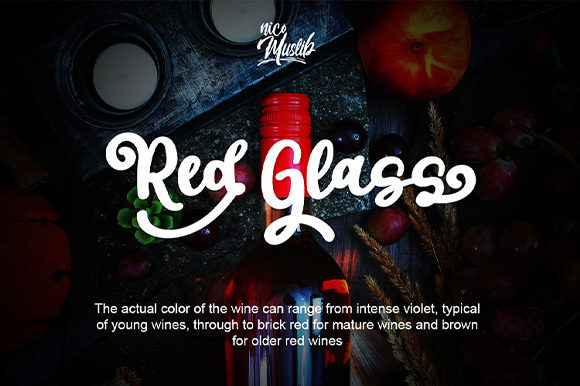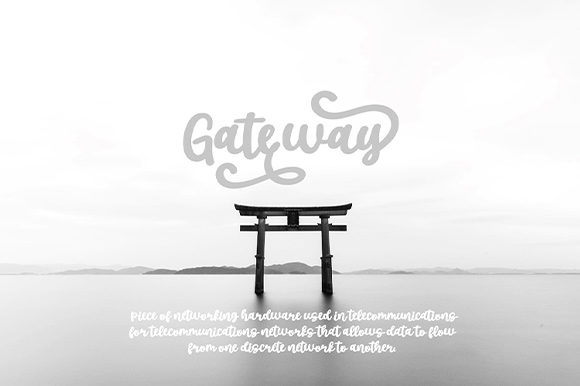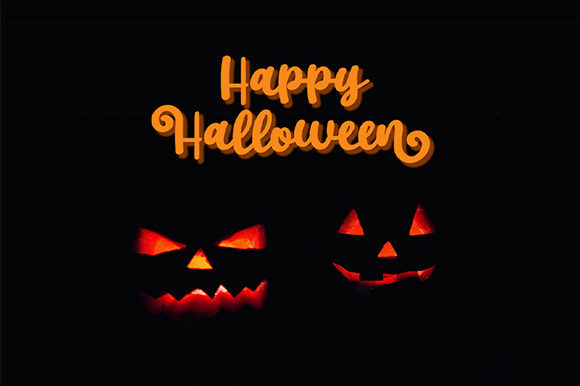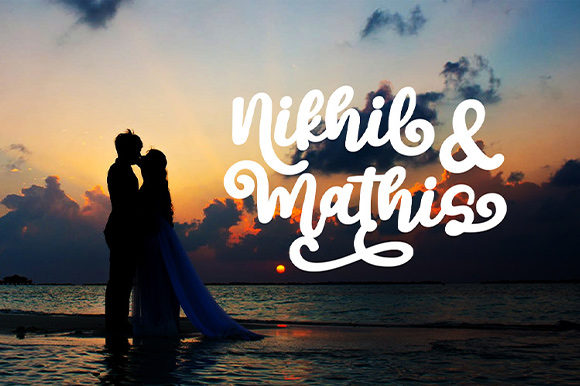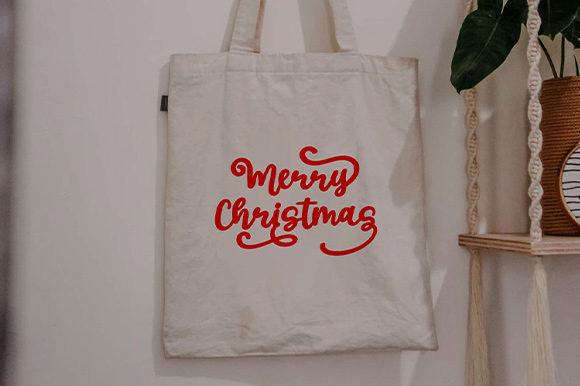
About Red Marble Font
Introducing “Red Marble,” an exquisite and elegant handwritten font that exudes sophistication and charm. With its flowing and graceful style, this font is perfect for a wide range of projects, from wedding invitations to thank you cards, quotes, greeting cards, logos, business cards, and any design that requires a touch of handwritten beauty.
One of the remarkable features of “Red Marble” is its PUA encoding, which allows easy access to all the glyphs and swashes. This means you have the flexibility to customize and add flourishes to your designs effortlessly, enhancing the overall visual appeal and uniqueness of your creations.
The varying baseline of “Red Marble” adds a sense of movement and rhythm, creating a dynamic and engaging visual experience. The smooth lines and gorgeous glyphs give your designs a polished and professional look, making it an excellent choice for both personal and commercial projects.
While “Red Marble” maintains its classy calligraphic influences, it also embodies a contemporary and fresh feel, making it a versatile font that can adapt to various design themes and styles. It adds a touch of timeless elegance while remaining relevant and captivating in modern contexts.
As you work with “Red Marble,” you’ll fall in love with its beauty and versatility, and you’ll find that it elevates your projects to the highest levels. Whether you’re designing for formal events or more casual occasions, this font seamlessly fits into your creative vision, leaving a lasting impression on your audience.
By using “Red Marble,” you’ll unleash the full potential of a handwritten font that adds an extra layer of elegance and sophistication to your designs. Its classic yet contemporary appeal makes it a perfect choice for any creative endeavor, allowing you to create stunning visuals that capture the hearts of your audience.
So, let “Red Marble” be your go-to font for all your elegant and flowing handwritten needs. Watch as it transforms your projects into captivating masterpieces, leaving a lasting impression and bringing a touch of class and style to every design.
Embrace the beauty and charm of “Red Marble” and let it be the key to unlocking the highest levels of creativity in your projects. Fall in love with this font and experience the joy of creating with a font that embodies elegance, sophistication, and timeless appeal.